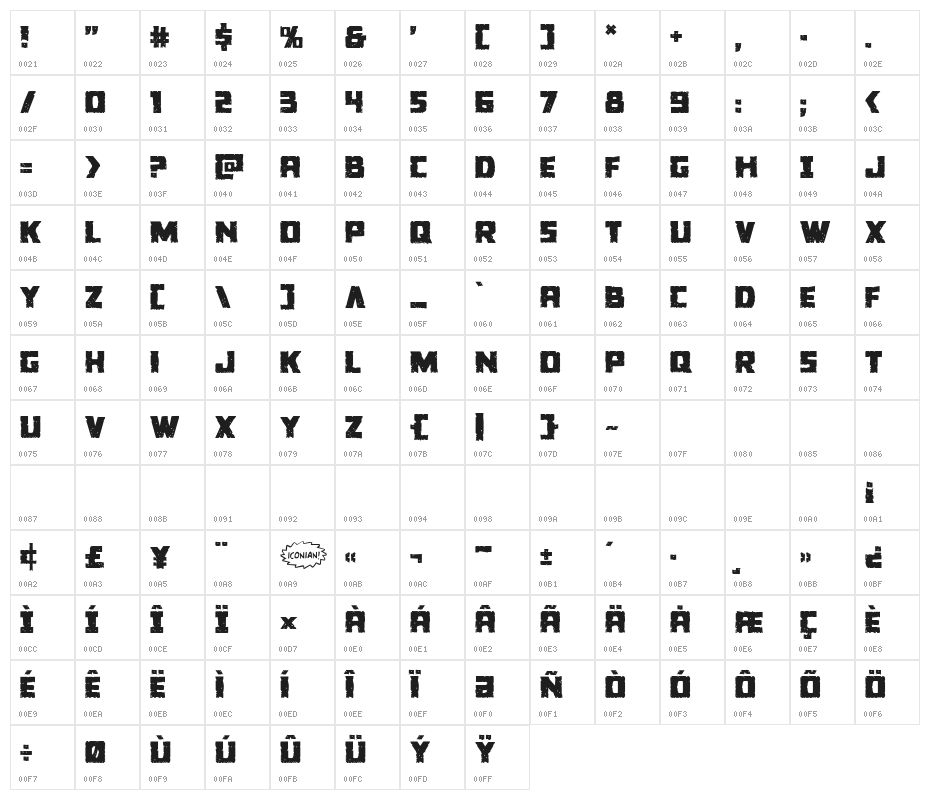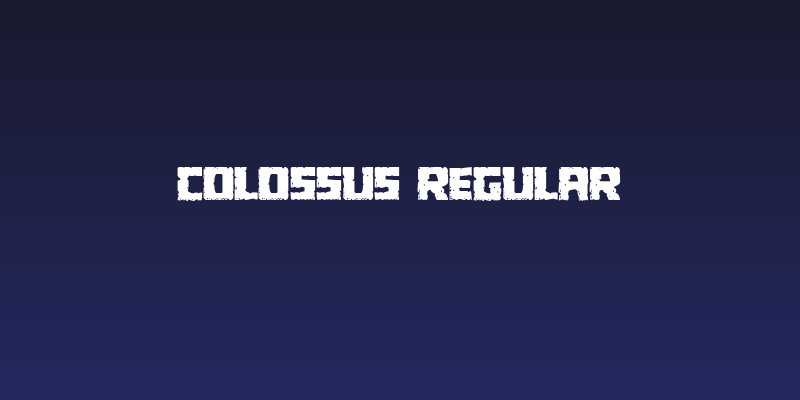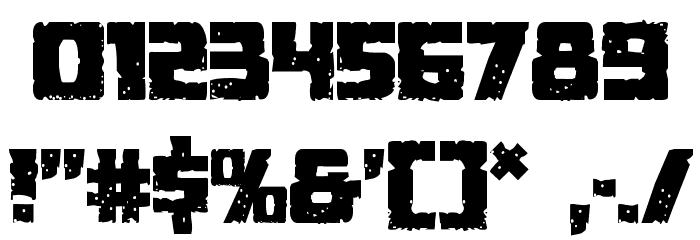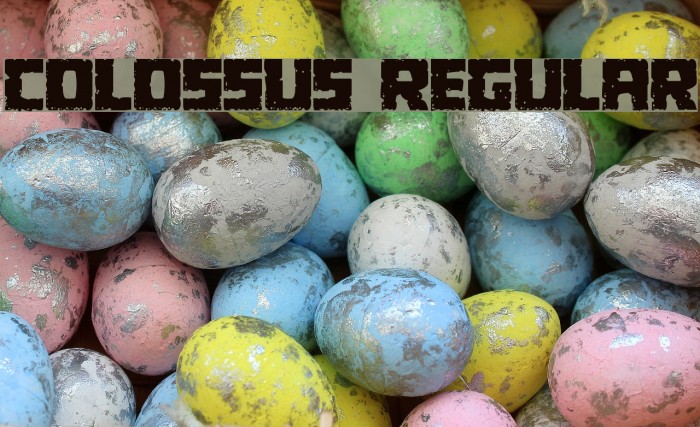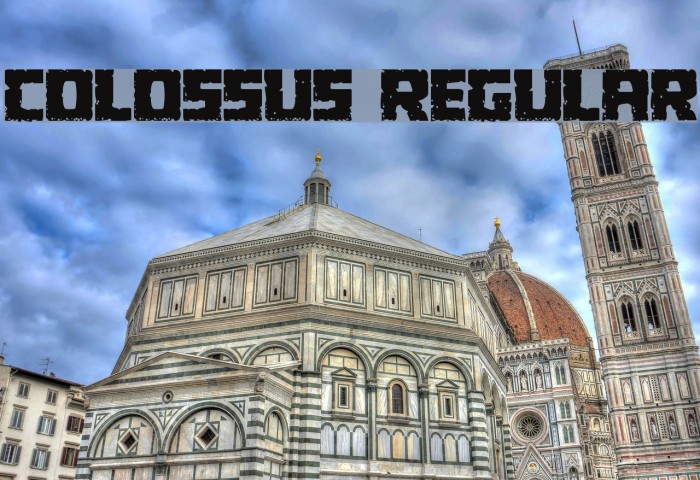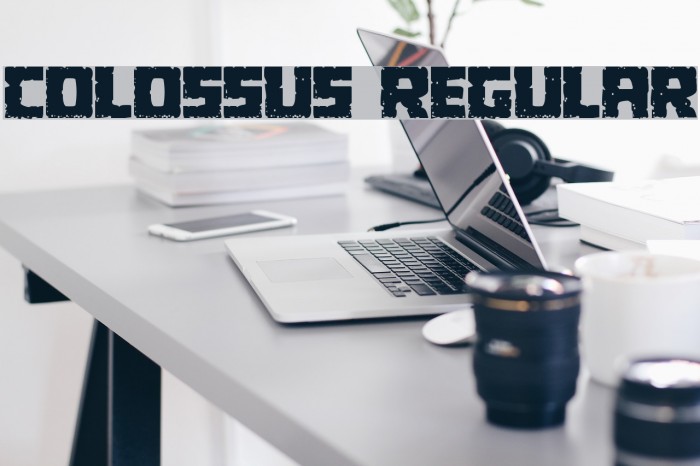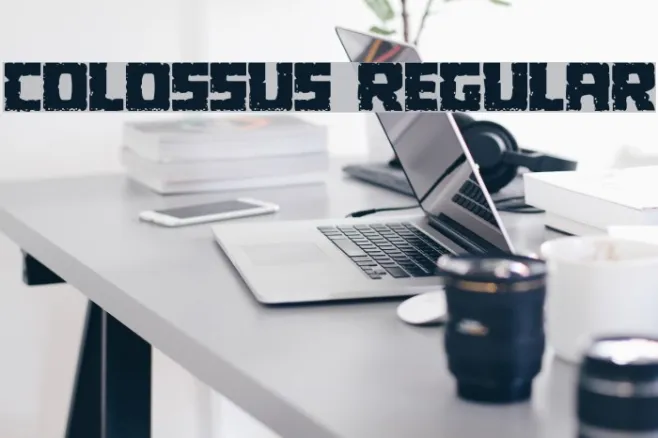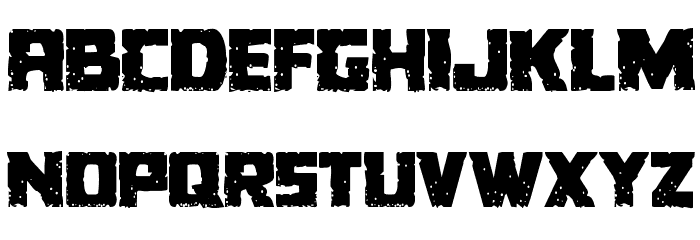
Colossus Regular Font
Colossus Regular Description
This font features a bold and rugged design with a distressed texture that gives it a worn, vintage appearance. The characters are blocky and robust, with a strong presence that commands attention. The uppercase and lowercase letters maintain a consistent style, while the numbers and special characters are equally bold and impactful. The rough edges and uneven surfaces contribute to its gritty, industrial feel, making it ideal for projects that require a strong, eye-catching typeface.
| Overall Style | Vintage |
| Proposed Projects | Ideal for posters, album covers, branding for outdoor or adventure products, and any design requiring a strong, vintage aesthetic. |